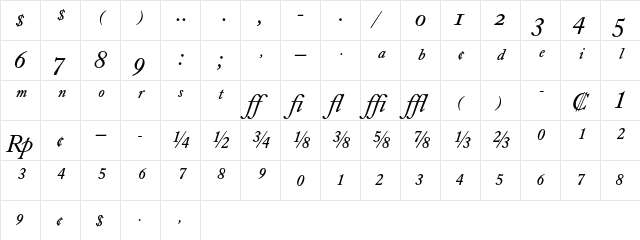
Caslon Book BE Italic Expert
Design Context for Caslon Book BE Typeface
Caslon Book BE takes a measured approach to typography — its balanced proportions and neutral character make it a reliable workhorse for both digital and print work. The dynamic lean of this cut emphasises speed and emphasis in any layout.
Pro Tip: Try Caslon Book BE for annotation and caption copy alongside an upright companion — the contrast in angle creates a dynamic but ordered typographic system.